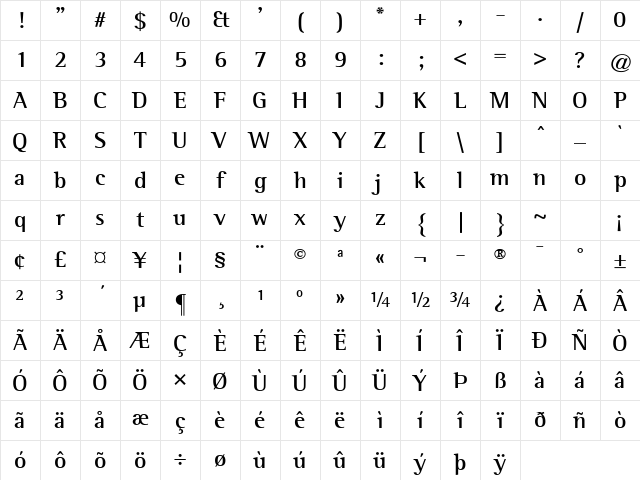
RotisSemiSerif Bold
Design Context for RotisSemiSerif
RotisSemiSerif carries the refined structure of traditional serif typography, with bracketed terminals and considered proportions that communicate credibility and craft. Its bold stroke weight gives it real presence on the page.
Pro Tip: Use RotisSemiSerif for editorial body copy and considered headline work. Pair with a neutral sans for UI elements or captions to create a classic hierarchy.